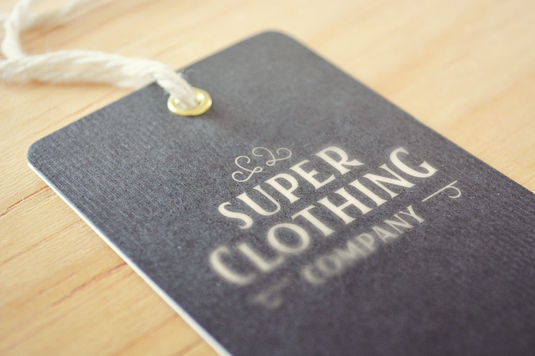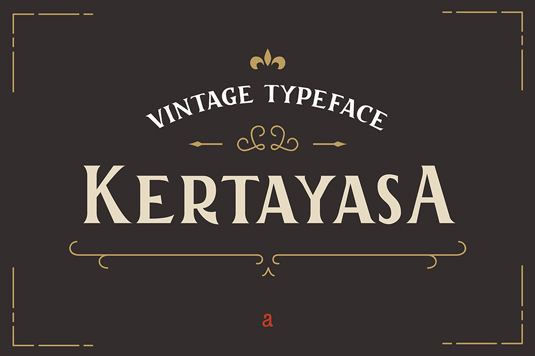
Font of the day: Kertayasa
Kertayasa by Fadhl Waliy Ul Haqq
An elegant, vintage typeface, Kertayasa was created by design student Fadhl Waliy Ul Haqq. "The name is taken from Sansekerta, which has dignity and happiness as the meaning," he comments on Behance.